15 Decorative Fonts: Top Picks for DIY and Branding
Finding the perfect decorative fonts can completely transform a project from “just okay” to absolutely unforgettable. In the world of design, these fonts are the ultimate storytellers—they carry an emotional weight that standard serifs simply can’t match.
Whether I’m working on a whimsical wedding invitation, a bold brand identity, or a playful social media campaign, I’ve found that the right decorative choice acts as the heart of the entire visual.
In this roundup, I’m sharing a handpicked selection of my personal favorites. These aren’t just letters on a screen; they are unique tools designed to add texture, personality, and a human touch to your creative toolkit.
Let’s dive into these standout typefaces and see how they can breathe new life into your next design.
1. Alina Monogram Decorative Font
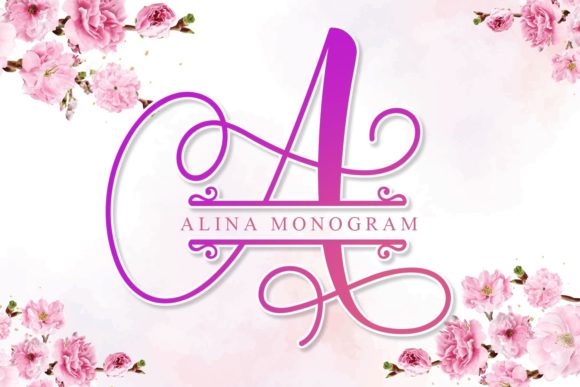
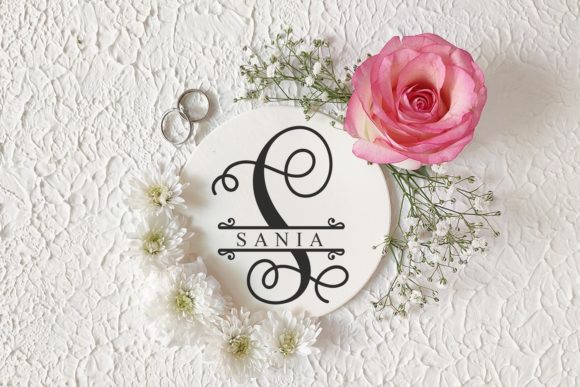
I’ve always felt that Alina Monogram is more than just a typeface; it’s a way to add a soul to your digital work. As one of my favorite decorative fonts, it brings a charming, authentic vibe that’s hard to replicate.
I love using it for heartfelt wedding invitations, custom stationery, or social media posts that need to stand out. It’s incredibly easy to work with and instantly makes any greeting card feel personal and high-end.
2. Beauty Flower Monogram Decorative Font
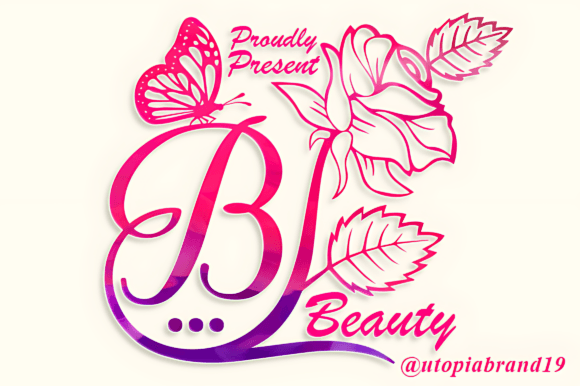
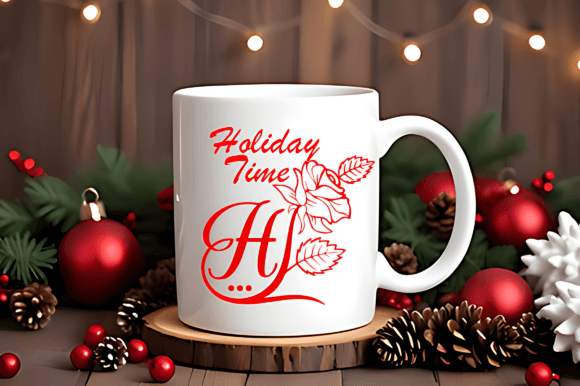
I’m a huge fan of how Beauty Flower Monogram balances sophistication with those delicate, organic ornaments. It is one of those decorative fonts that does the heavy lifting for you—the floral details are so elegant they almost act as standalone art.
I find it perfect for high-end wedding invitations or branding for boutique floral shops. If you want to transform a simple greeting card into a keepsake, this font’s authentic, graceful flow is exactly what you need.
3. Cute Dog Decorative Font
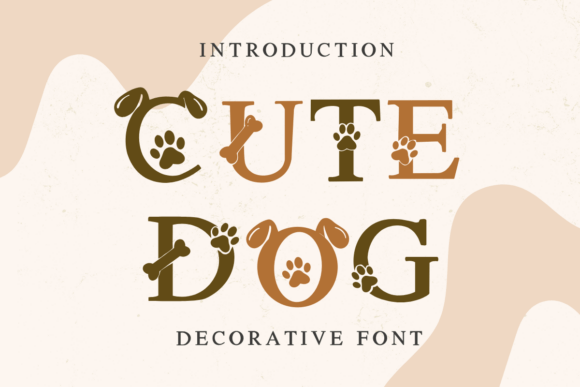
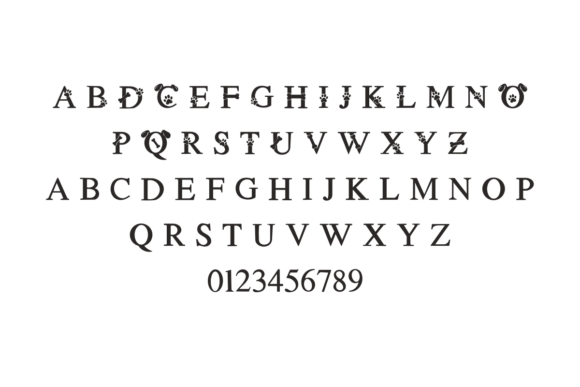
I can’t help but smile every time I use Cute Dog. It’s one of the most playful decorative fonts I’ve come across, perfectly capturing that wagging-tail energy with its clever paw and bone details.
I usually reach for this when I’m working on pet shop branding or a kid’s birthday invite—it just makes the design feel approachable and fun. The best part? It adds so much character to children’s apparel and greeting cards without trying too hard. It’s pure, heartwarming personality in every letter.
4. Glora Heart Decorative Font
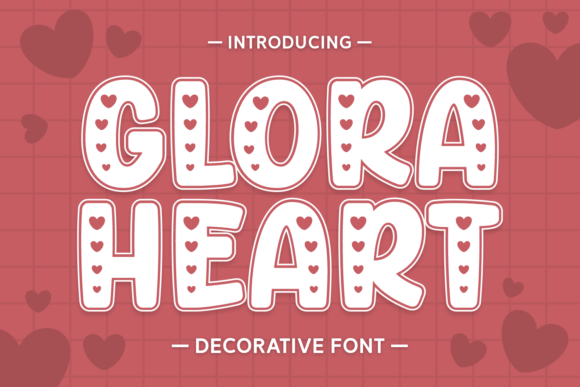
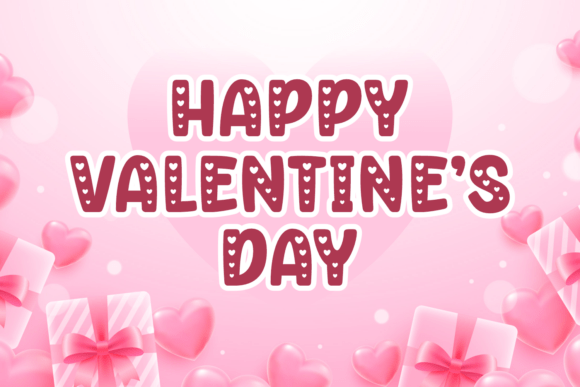
I honestly think Glora Heart is the ultimate mood-booster in the world of decorative fonts. Its chunky, soft-edged letters feel like a warm hug, and those tiny heart cutouts add a layer of sweetness that’s hard to beat.
I love using this for high-impact Valentine’s designs or kid-focused branding where you need a “pop” of personality. It’s my top choice for custom apparel and posters because it’s bold, fun, and creates a memorable visual punch without needing any extra icons.
5. Dinosaur Decorative Font
I love how the Dinosaur font instantly brings a sense of wonder and prehistoric fun to the screen. It’s not just for kids’ parties; I’ve found it’s one of those decorative fonts that really breathes life into personal journals or custom stationery.
Whether I’m designing a bold banner or a quirky t-shirt, its distinctive flair always leaves a lasting impression. It’s my favorite choice when I want to ditch the ordinary and add a whimsical, “indestructible” style statement to a cozy mug or a viral social media post.
6. Pokenom Decorative Font
If you’re looking to inject some high-energy nostalgia into your work, Pokenom is an absolute gem. It’s a sharp, gothic-styled decorative font that perfectly captures that iconic cartoon and gaming aesthetic we all grew up with.
I find it incredibly effective for YouTube thumbnails, t-shirt designs, or game titles where you need the text to practically jump off the screen. With its meticulously crafted characters, it turns a simple headline into a visual story, making it my top pick for any project that needs to feel dynamic, bold, and a little bit legendary.
7. Aurelina Monogram Decorative Font
There is something incredibly poetic about Aurelina. It’s one of those decorative fonts that feels like a blooming garden on the page, with its delicate butterfly accents and floral swirls.
I personally love using it for vintage-inspired branding or high-end wedding invitations because it adds a layer of nature-inspired sophistication that’s hard to find elsewhere.
If you’re designing a logo or a monogram and want it to feel both elegant and alive, this font provides that perfect touch of “fine-art” charm that makes any project feel curated.
8. Valentine Decorative Font
I honestly think the Valentine font is like a shot of pure joy for your canvas. It’s one of those decorative fonts that doesn’t take itself too seriously, whimsically “dressing up” every letter with those adorable heart accents.
I love using this when a project needs to feel warm and personal—think Valentine’s Day cards, heartfelt posters, or even branding for a kid’s line. It has this playful, handcrafted demeanor that turns standard text into a piece of art, making it my go-to when I want to add a unique, affectionate spin to a design.
9. Heart Strings Decorative Font
Whenever I’m working on a DIY craft or a romantic project, Heart Strings is the first thing I grab. It’s one of those decorative fonts that feels like a nostalgic doodle from a school notebook, with those adorable hand-drawn hearts built right into the letters.
I’ve found it’s a total game-changer for Cricut projects, sublimation mugs, and digital planning because it adds that “handmade with love” warmth instantly. The lines are bold and friendly, making it my top recommendation for Valentine’s Day cards or aesthetic social media quotes where you want to capture that butterfly-in-your-stomach feeling.
10. Heart Emblem Monogram Decorative Font
I honestly think Heart Emblem Monogram is a must-have for anyone who loves a personalized touch. It’s a standout among decorative fonts because it combines the structure of a monogram with a lovely, romantic aesthetic.
I’ve found it works beautifully for creating custom wedding seals or unique branding for handmade gift shops. The best part is how effortless it makes the design process—you just add it to your creative ideas and watch how the heart-themed details instantly make your project feel more thoughtful and high-end.
11. Bright Heart Decorative Font
What I love about Bright Heart is its ability to make festive typography feel both professional and incredibly sweet. It’s a standout choice among decorative fonts when you want your message to truly “pop” on a page.
I’ve used it for everything from bright advertising banners to cozy fabric prints, and it never fails to elevate the design. Whether you’re crafting a DIY gift or a batch of greeting cards, this font has a beautiful, polished energy that makes even the simplest layout feel like something special.
12. Butterfly Monogram Decorative Font
There’s something truly ethereal about Butterfly Monogram. It’s one of those decorative fonts that feels light, airy, and full of life. I personally love how the delicate butterfly ornaments wrap around the letters—it makes every monogram feel like a custom piece of art.
I usually recommend this for wedding invitations or high-end stationery where you want that “authentic” hand-drawn feel. It’s also a fantastic way to make a social media post stand out; it brings a nature-inspired elegance that’s sophisticated without being too heavy.
13. Scrabble Game Decorative Font
I think Scrabble Game is such a clever find for anyone who loves a bit of nostalgia and interactivity. It’s one of those decorative fonts that instantly turns a design into a fun, mental puzzle. I’m a big fan of how the uppercase letters act as silhouettes while the lowercase offers a clean outline—it’s super easy to layer and play with.
I’ve found it’s the perfect companion for school worksheets, playful posters, or scrapbook pages. If you’re looking to bring a “game night” energy to your DIY projects, adding this to your library is a total no-brainer.
14. Sugar Pop Decorative Font
Whenever a project feels a bit too “serious,” I reach for Sugar Pop Font to lighten the mood. It’s one of those decorative fonts that literally looks as delicious as it sounds—you can almost feel the candy swirls and sugary textures in the letters.
I’ve found it’s a total hit for kids’ birthday invitations and playful product packaging. It brings such a cheerful, high-energy vibe to the page that you don’t need much else to make a design stand out. If you want your logos or holiday crafts to feel sweet and eye-catching, this is definitely your go-to.
15. Butterfly Decorative Font
There’s a certain flow to the Butterfly font that feels incredibly natural and sophisticated. Unlike many other decorative fonts that can feel a bit “stiff,” this one has an effortless, handwritten elegance that I absolutely love.
It’s my top choice for wedding invitations and business cards when I want to add a personal, high-end touch. A huge plus is that it’s PUA encoded, so you don’t have to be a tech wizard to access all those beautiful extra glyphs and alternates. It’s a stunningly versatile tool for anyone looking to make their quotes or logos feel truly one-of-a-kind.
Final Thoughts on Choosing the Right Font
Selecting the perfect typeface is about more than just aesthetics; it’s about finding the right “voice” for your message. Whether you’re leaning toward the romantic swirls of Aurelina, the playful energy of Sugar Pop, or the nostalgic charm of Scrabble Game, this collection of decorative fonts offers a tool for every possible mood.
In my experience, the best designs happen when you aren’t afraid to experiment. Decorative typefaces are meant to be bold and expressive, so don’t be shy about letting them take center stage in your next DIY project, branding kit, or social media post. By adding a few of these unique styles to your library, you’re not just picking a font—you’re giving your creative work a memorable personality that readers will truly feel.